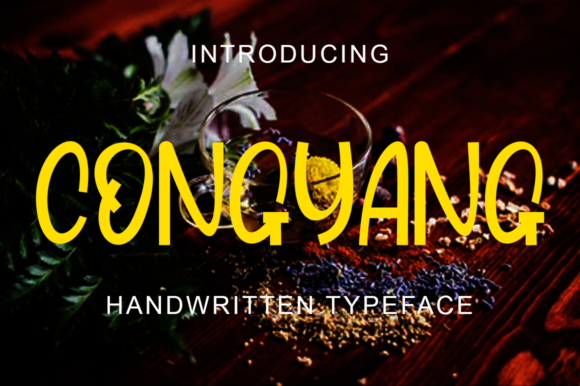
Congyang Font: Add a Whimsical Touch to Your Creations
In the world of typography, fonts play a crucial role in conveying the tone and personality of a design. If you’re looking for a font that can add a whimsical, trendy touch to your creations, look no further than Congyang Font. This cool and quirky display font is perfect for designers and crafters who want to add a unique flair to their work.
What is Congyang Font?
Congyang Font is a display font designed to make a statement. Its unique and quirky design makes it perfect for a wide range of creations, from posters and flyers to social media graphics and branding materials. The font’s whimsical touch is sure to capture the attention of your audience and leave a lasting impression.
Key Features of Congyang Font
Congyang Font comes with a range of features that make it a versatile and fun font to work with. Some of its key features include:
- Unique and Quirky Design: Congyang Font has a one-of-a-kind design that’s sure to stand out from the crowd.
- Whimsical Touch: The font’s playful and whimsical touch makes it perfect for designs that require a touch of personality.
- Trendy and Modern: Congyang Font is perfect for designers who want to create modern and trendy designs.
- Endless Variations: With Congyang Font, you can experiment with endless variations to create a unique look that suits your design needs.
Uses of Congyang Font
Congyang Font is a versatile font that can be used for a wide range of design projects. Here are some ideas to get you started:
- Posters and Flyers: Use Congyang Font to create eye-catching posters and flyers that grab attention.
- Social Media Graphics: Add a touch of whimsy to your social media graphics with Congyang Font.
- Branding Materials: Use Congyang Font to create unique and memorable branding materials, such as logos and business cards.
- Crafting and DIY Projects: Congyang Font is perfect for crafters who want to add a personal touch to their DIY projects, such as handmade cards and gift tags.
Tips for Using Congyang Font
Here are some tips to help you get the most out of Congyang Font:
- Experiment with Different Sizes: Congyang Font looks great in large sizes, but it can also be used in smaller sizes to add a touch of whimsy to your design.
- Play with Colors: Congyang Font comes in a range of colors, so don’t be afraid to experiment with different colors to find the perfect match for your design.
- Mix and Match with Other Fonts: Congyang Font can be paired with other fonts to create a unique and interesting design.
Congyang Font is a fun and quirky display font that’s perfect for designers and crafters who want to add a whimsical touch to their creations. With its unique design, trendy and modern look, and endless variations, Congyang Font is sure to become a favorite in your design arsenal. So why not give it a try and see what amazing designs you can create?